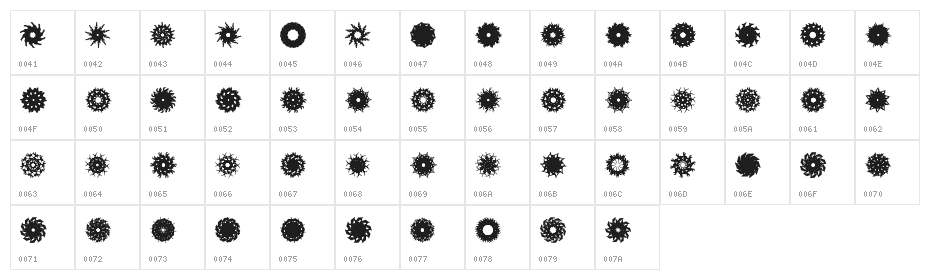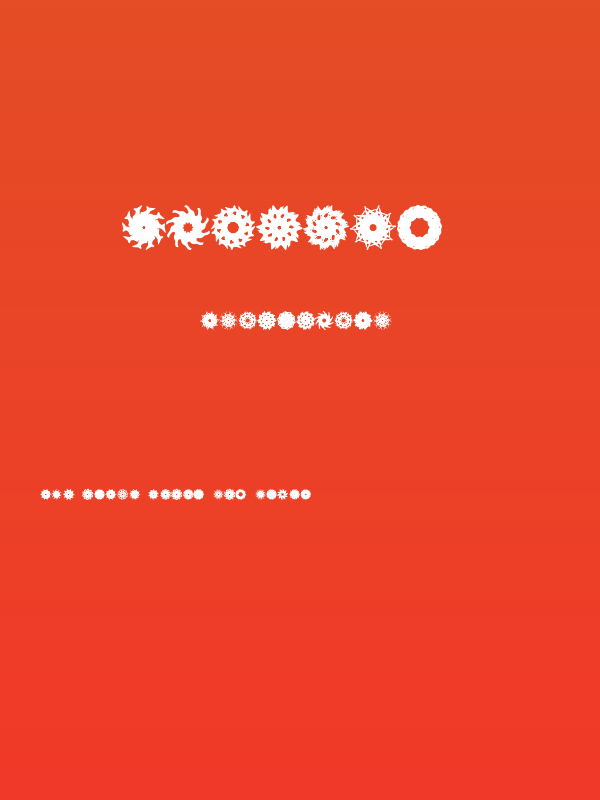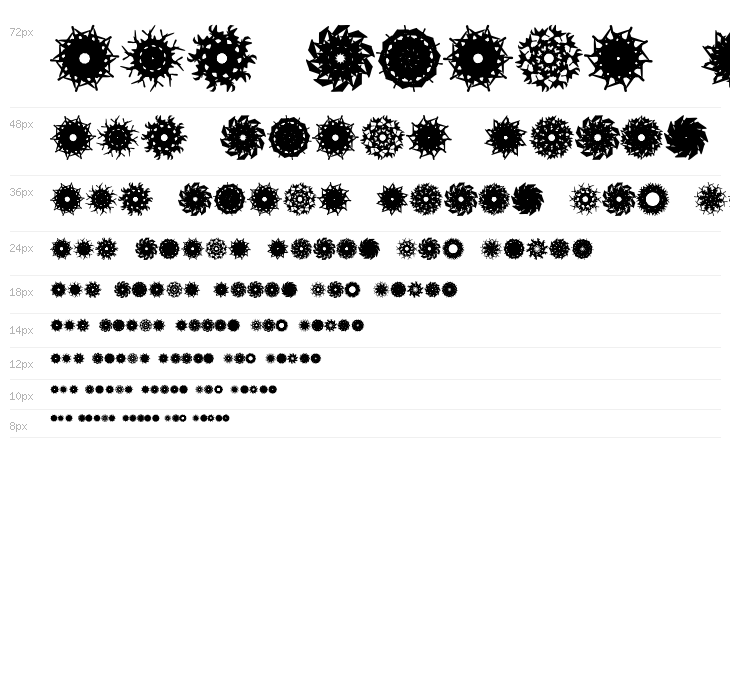
LaMorte4 Font
LaMorte4 Description
Highly decorative and abstract font composed of intricate, spiky, and circular shapes for each character, making letterforms almost unrecognizable and resembling complex symbols or emblems.
| Overall Style | Decorative, Abstract, Experimental |
| Use Case | Logos, Posters, Titles, Art projects |
| Proposed Projects | Posters, album covers, horror or sci-fi themed graphics, experimental art, occult or fantasy branding. |